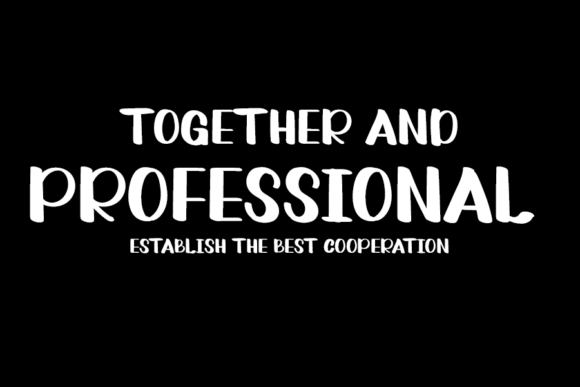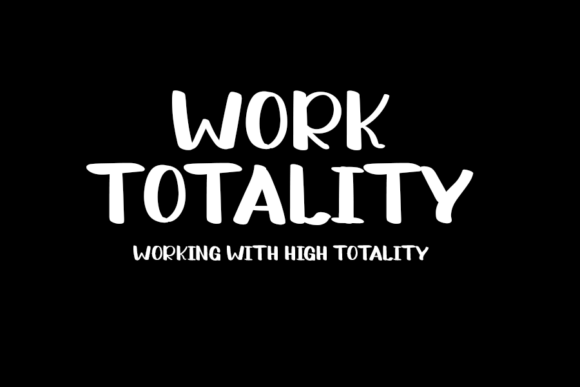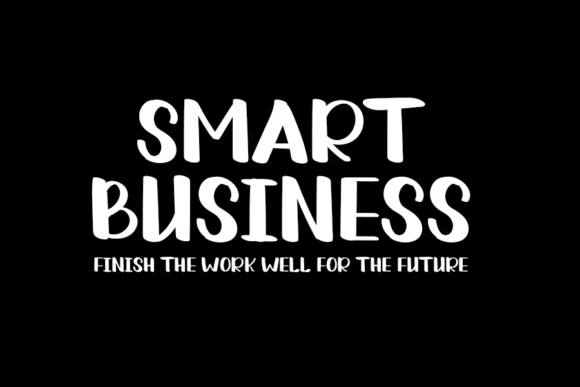
The Aquarium Font: A Modern Sans Serif Delight
I’ll never forget the design struggle I faced while working on a project for a trendy aquarium client. I was on a mission to find the perfect font that would capture the playful, yet sophisticated vibe of their brand. After hours of scouring through font libraries, I stumbled upon the Aquarium font. It was love at first sight! ✨
This modern sans serif font has become a true favorite of mine, and I’m excited to share its awesomeness with you. Its casual charm makes it appear wonderfully down-to-earth, readable, and incredibly versatile. Whether it’s being used on busy backgrounds or as a standalone headline, Aquarium font is sure to make a splash! 🌊
• ✨ Clean and modern design: Aquarium font boasts a sleek, contemporary look that’s perfect for a wide range of design projects.
• ✅ Excellent readability: The font’s carefully crafted letterforms ensure that it remains clear and legible, even at smaller sizes.
• 🌈 Versatility: Aquarium font works beautifully in various contexts, from digital designs to print materials.
While Aquarium font is an excellent choice, there are a few minor quirks to be aware of: 🤔
• ⚠️ Limited language support: Aquarium font may not support certain languages or special characters, so be sure to check the font’s specifications before use.
• ⚠️ Not ideal for body text: While the font is readable, it’s better suited for headlines, titles, or short paragraphs rather than lengthy body text.
The Aquarium font was designed with a passion for modern typography and a love for the ocean. The designer’s inspiration came from the clean lines and curves of sea creatures, combined with a desire to create a font that’s both playful and sophisticated.
Q: What type of projects is Aquarium font best suited for?
A: Aquarium font is versatile and can be used for a wide range of projects, including digital designs, print materials, logos, and more.
Q: Is Aquarium font suitable for body text?
A: While Aquarium font is readable, it’s better suited for headlines, titles, or short paragraphs rather than lengthy body text.